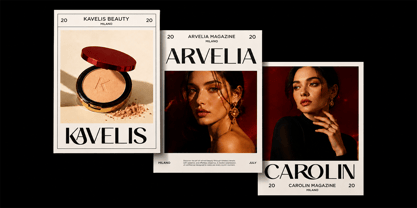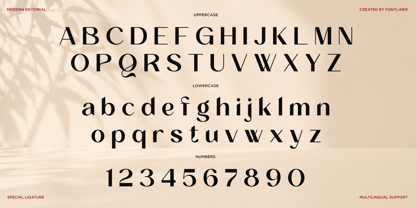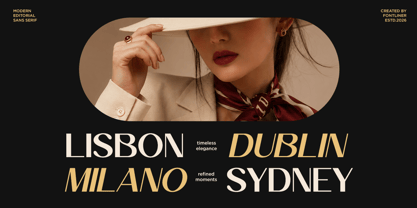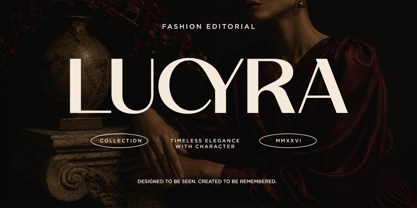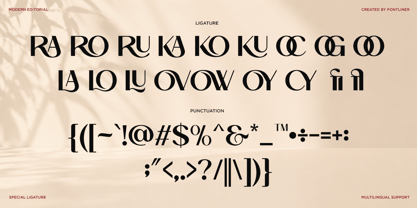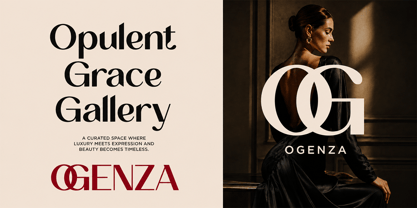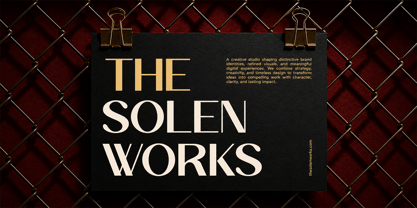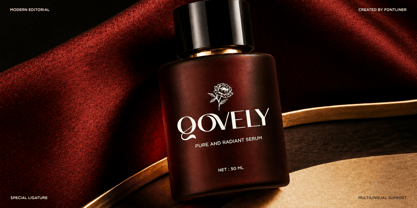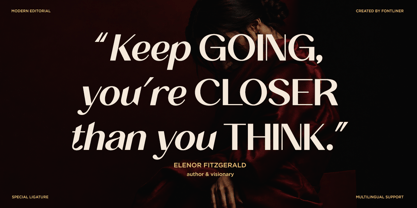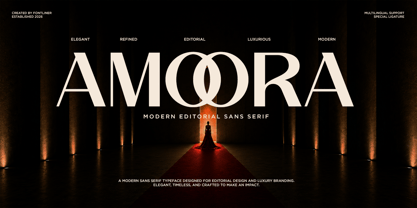
Amoora
The Amoora Font Family was designed by Ghina Luthfiarieska and published by Font Liner. Amoora contains 2 styles and family package options. More about this family
Amoora is stylish ligature serif font with sophisticated display typeface designed to bring timeless elegance and a premium editorial feel to your creative projects. Featuring high-contrast serif details, graceful curves, refined proportions, and distinctive letterforms, Amora creates an effortlessly luxurious visual presence.
Perfect for fashion branding, beauty products, luxury packaging, editorial magazines, wedding invitations, cosmetics, logos, boutique identities, posters, social media graphics, and premium advertising. Its elegant character works beautifully for both sophisticated headlines and memorable brand identities.
• Regular and Italic
• Stylistic Ligatures
• Uppercase and Lowercase
• Number, Symbol, and Punctuation
• Multilingual Support